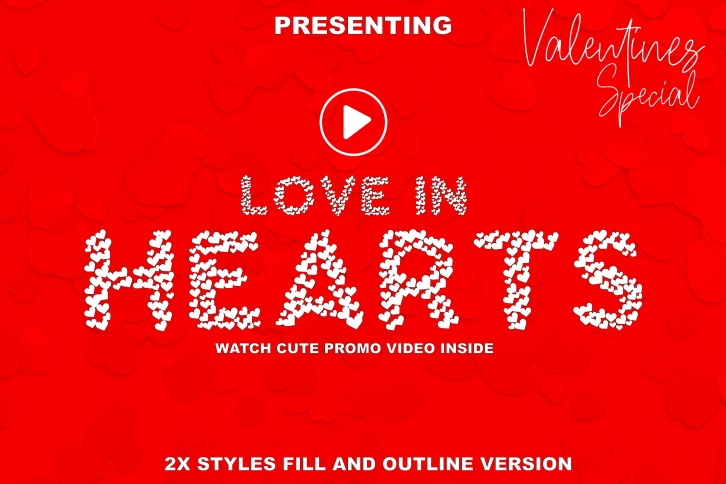
Love In Hearts - A Valentine Day Font Download
Love In Hearts is a great font that was designed by Aqua Artistry Creations. Imagine the amount of combinations you can create using this font! The archive is 10.96 MB and it was released on January 1, 2020. Love In Hearts looks beautiful on wedding invitations, greeting cards, logos, posters, labels, t-shirt designs, logos, business cards and is perfect for use in ink or watercolor works, fashion, magazines, packaging and food menus, children's books and more!